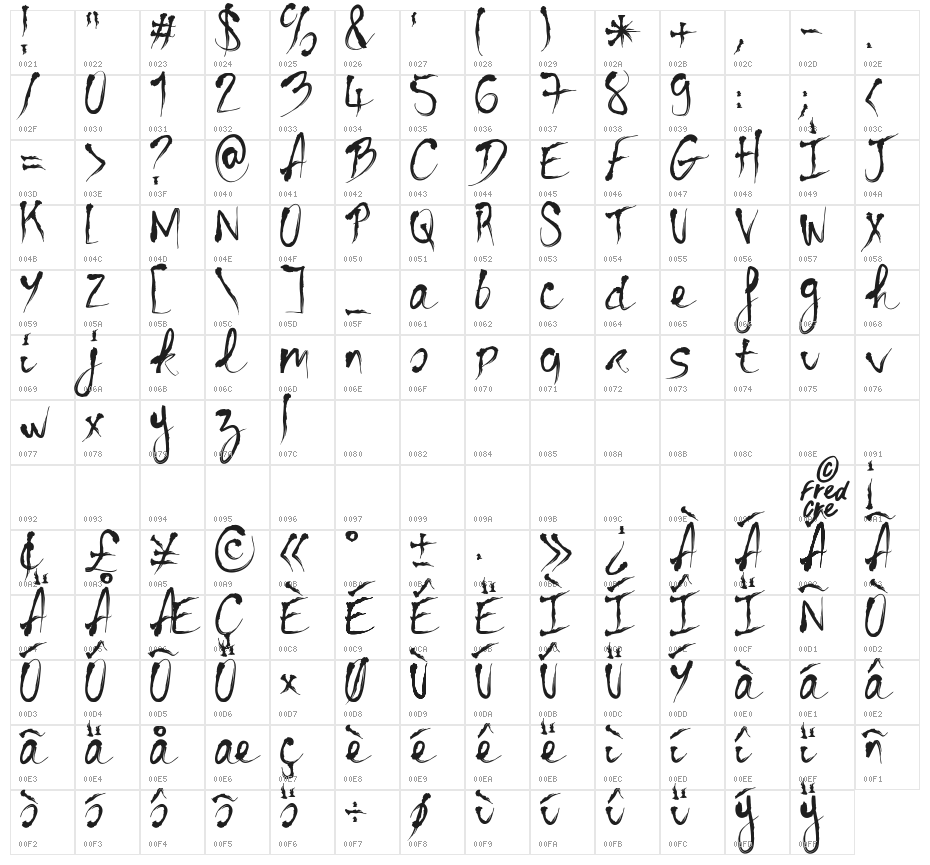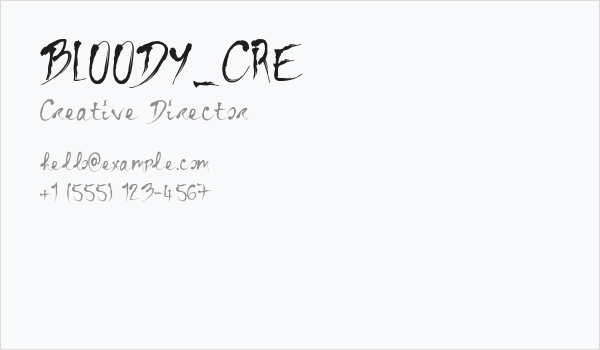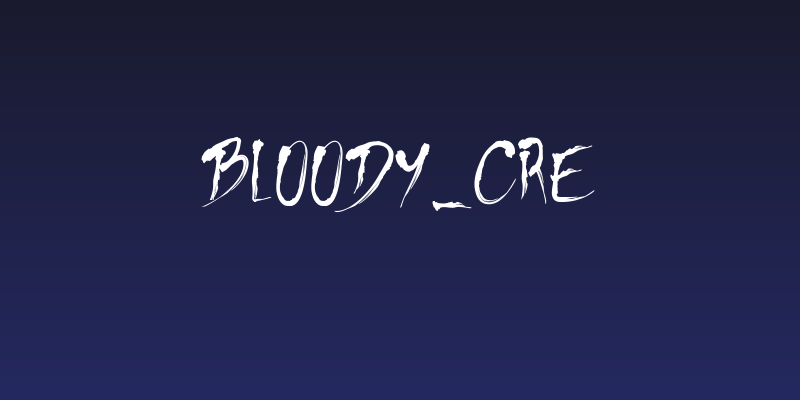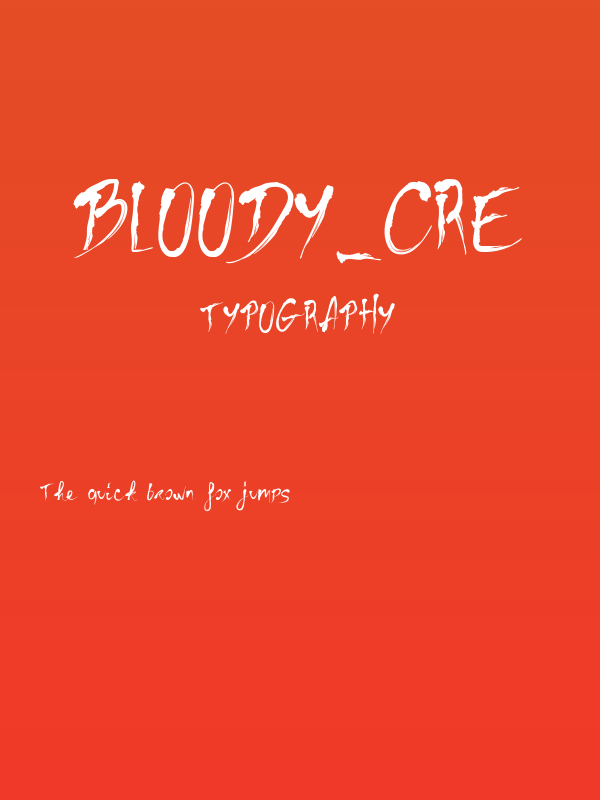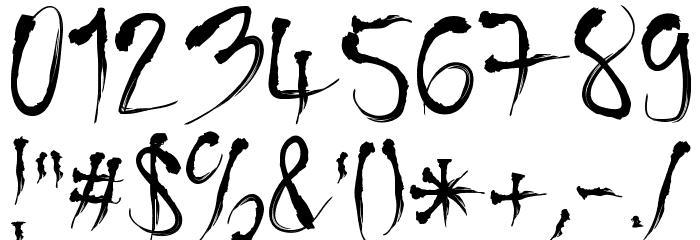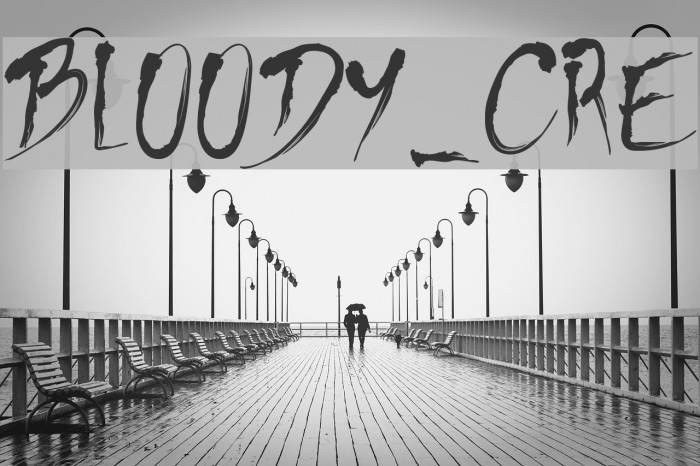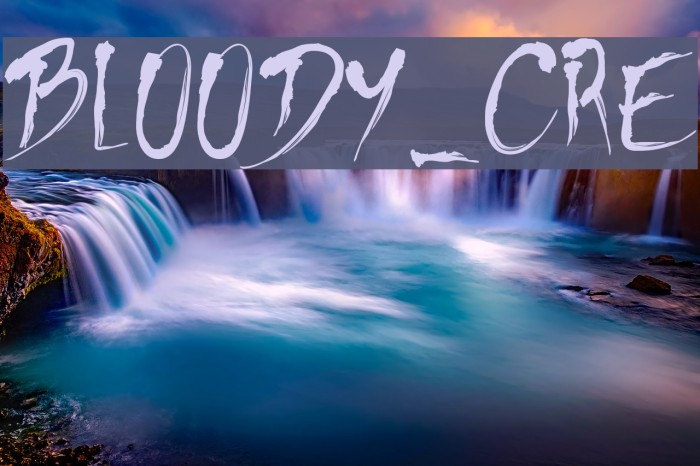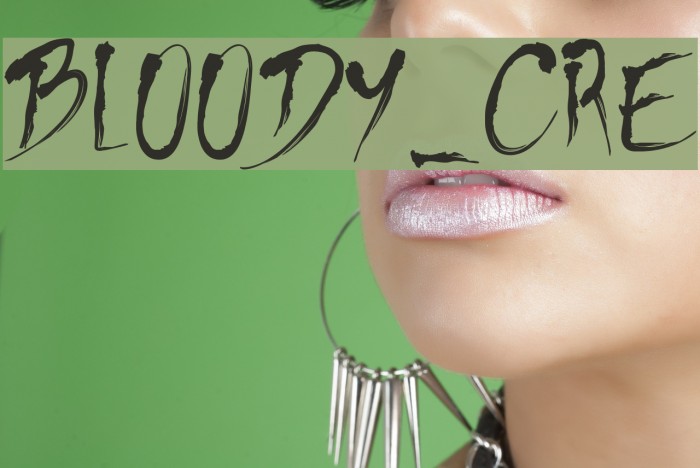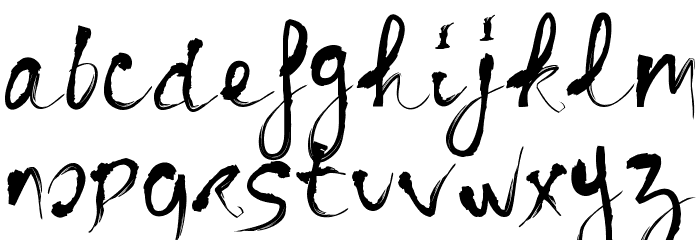
BLOODY_CRE Font
BLOODY_CRE Description
This font features a dramatic and expressive style, characterized by its brush-like strokes and uneven edges, giving it a raw and dynamic appearance. The letters have a hand-painted quality, with varying thicknesses and a sense of movement that suggests energy and spontaneity. The uppercase and lowercase letters maintain a consistent style, with some letters exhibiting unique flourishes and extensions. Numbers and special characters follow the same artistic approach, enhancing the overall cohesive look. This font's distinctive style makes it stand out, ideal for projects that require a bold and artistic touch.